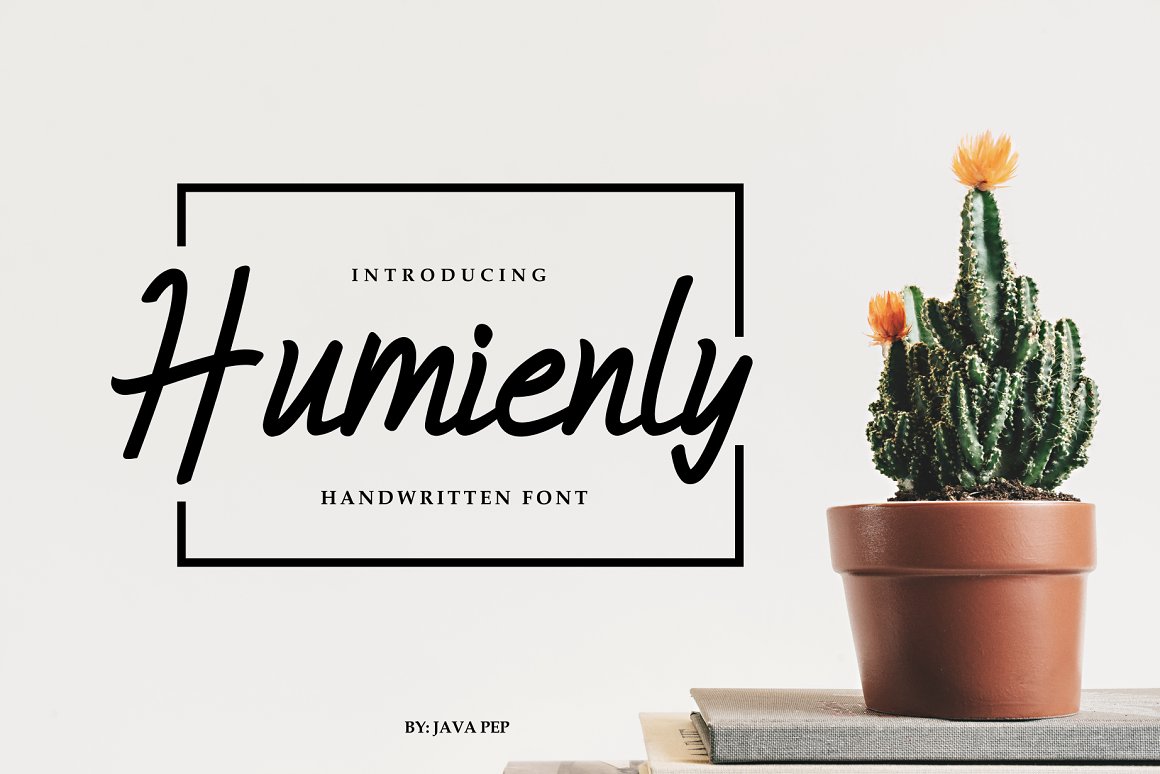
Humienly Handwritten
Humienly Handwritten Font
Proudly present the Humienly font. This font inspired of “humanly” so have taste like friendly for everyone;). Humienly is a handwritten font that has an elegnat, masculine but also feminine. Humienly is flexible font, this font can adjust to your needs and goals with various styles like modern, classic, masculine, feminime and etc.